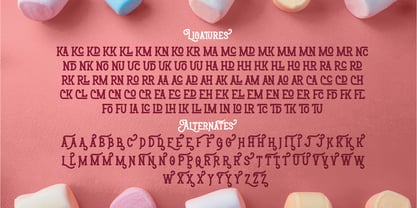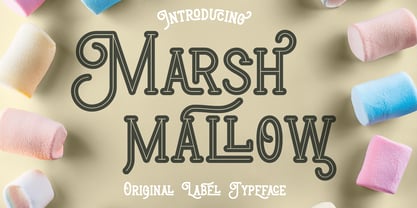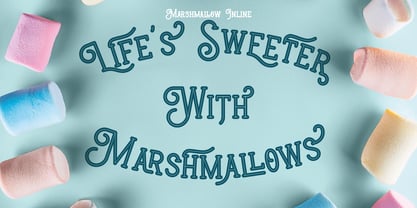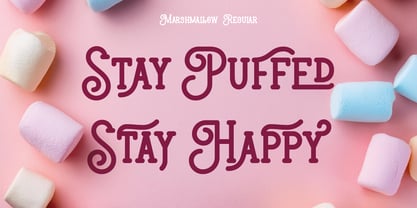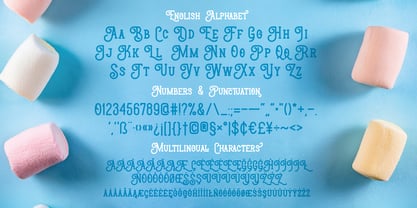
Marshmallow
by Vozzy
The Marshmallow Font Family was designed by Oleg Voznyy and published by Vozzy. Marshmallow contains 2 styles and family package options.
Introducing the original display font "Marshmallow" – a handcrafted typeface full of personality and charm. It includes extended characters, punctuation, full multilingual support, as well as a rich selection of alternates and ligatures to give your text extra style and flexibility. Whether you're working on posters, flyers, branding, or T-shirt designs, this font will make your message stand out. Every letter was carefully drawn by hand to achieve a unique and expressive look. "Marshmallow" is perfect for anyone who wants their design to feel striking, custom, and creative.